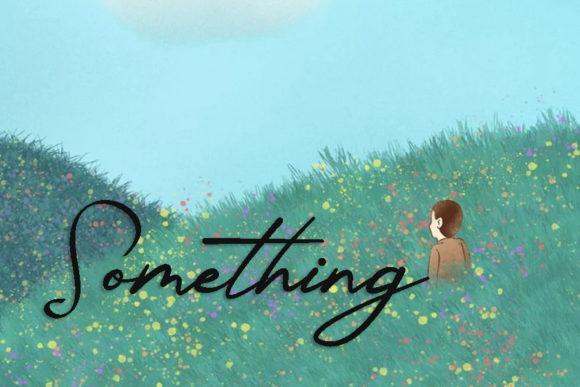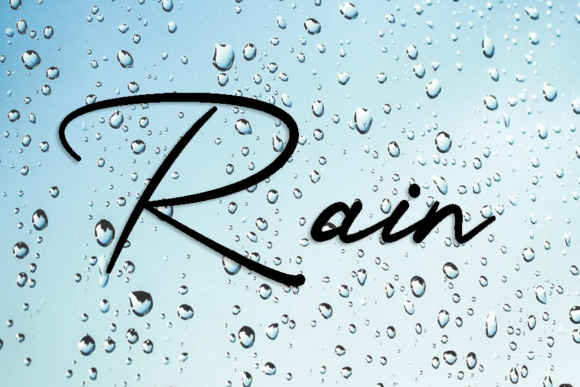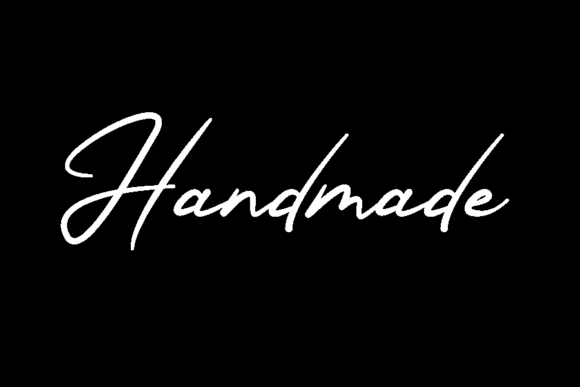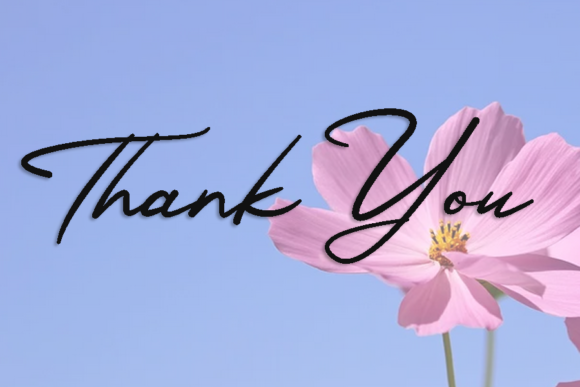
Jattamami Font
About Jattamami Font
“Jattamami” emerges as a fashionable handwritten font, seamlessly blending a contemporary atmosphere with impeccable form. Inspired by the enduring elegance of timeless classic calligraphy, this font stands as a testament to the harmonious fusion of tradition and modernity. Its balanced and varied strokes, carefully calibrated to strike the perfect balance between thickness and delicacy, come together to enhance the beauty of your projects.
Visualize “Jattamami” as a bridge that spans across eras, connecting the grace of classic calligraphy with the vibrancy of contemporary design. Its versatile nature ensures that it finds its place in a myriad of projects, adding a touch of sophistication and allure. As you weave “Jattamami” into your designs, you embark on a creative journey where the fusion of old and new transforms your projects into works of art.
This font becomes a vehicle for artistic expression, offering you the tools to create designs that resonate with both nostalgia and modern sensibilities. Whether it’s elevating branding and logos, breathing life into social media posts, or infusing your projects with an air of elegance, “Jattamami” becomes the quintessential font for enhancing the visual appeal of your creations.
In a design realm where the interplay of classic and contemporary aesthetics creates a compelling narrative, “Jattamami” shines as a beacon of creative ingenuity. Let its fashionable handwriting be the medium through which you channel your artistic vision, resulting in projects that exude sophistication and charm. Embrace the timeless allure of “Jattamami” and witness how it elevates the beauty of your designs, leaving an indelible mark on every canvas it graces.